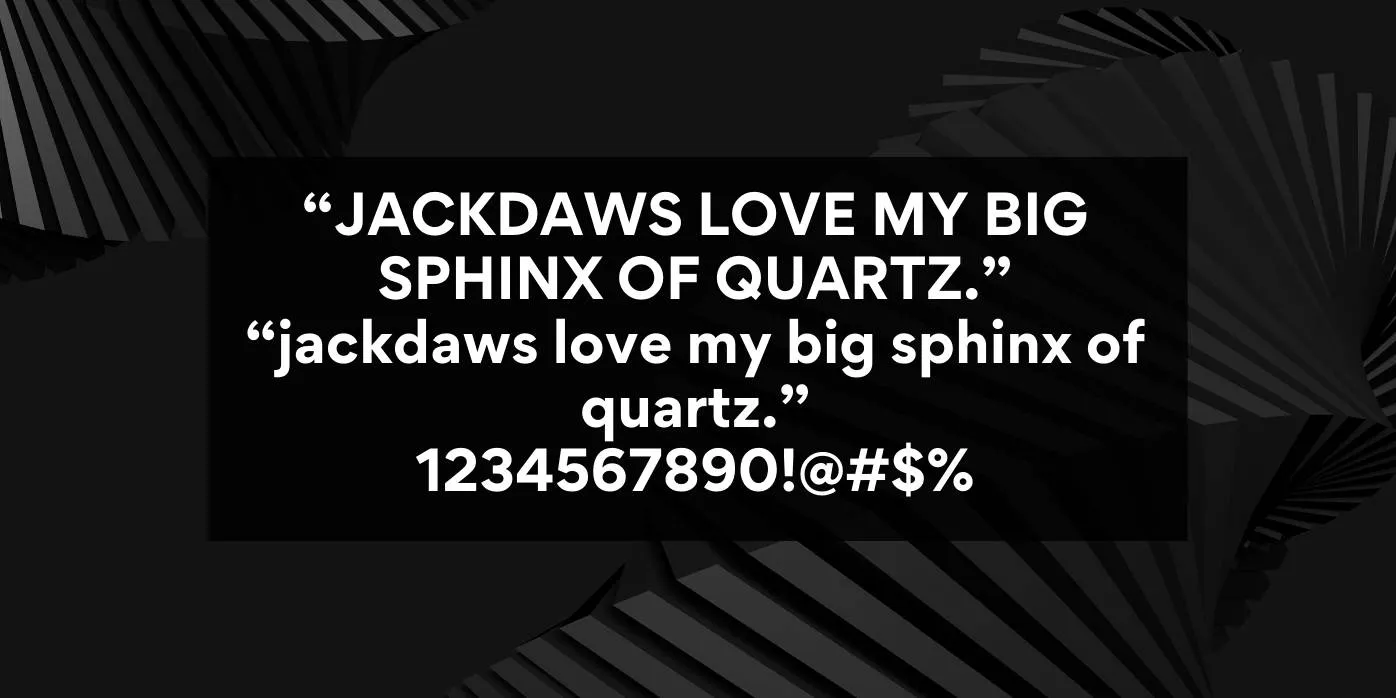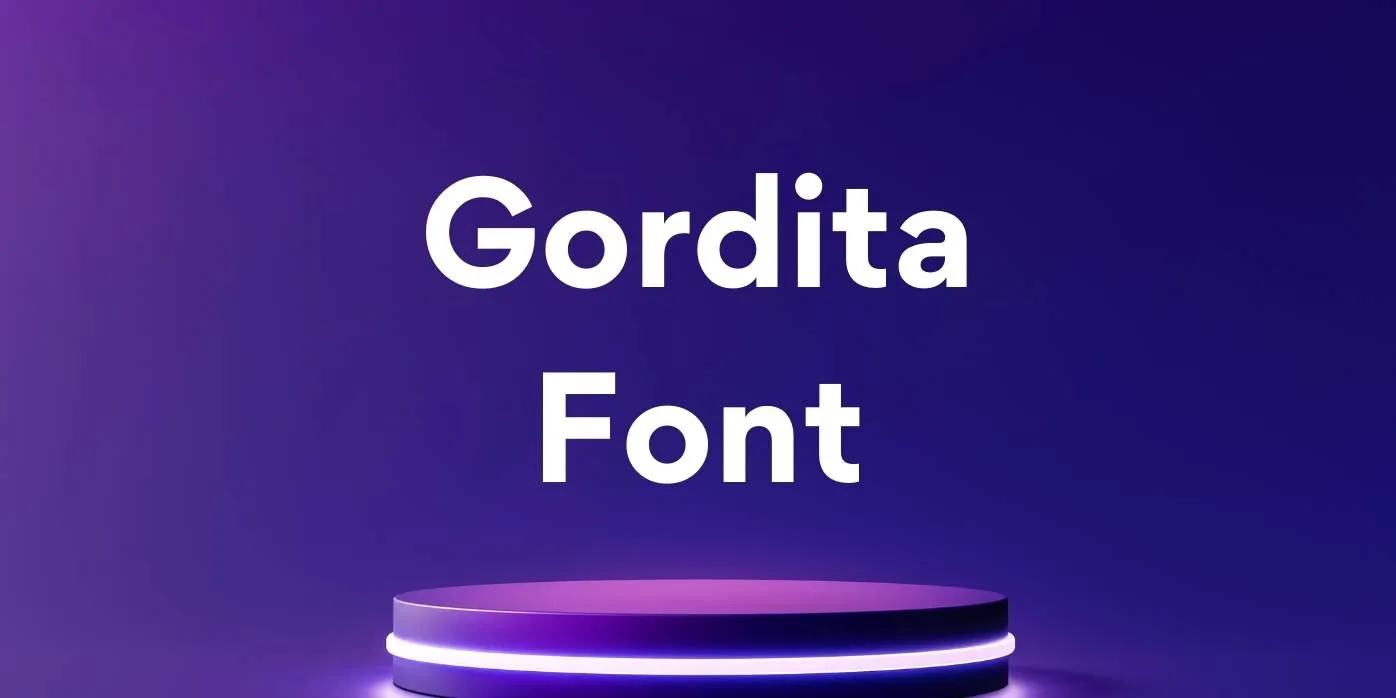
Gordita Font
Gordita Font is designed by Thomas Gillett. This family belongs to the sans serif typeface. This gorgeous font package contains five weights: Regular, Bold, Extrabold, Black, and Light. This typeface has neat and clean textures.
This tremendous font is perfect for headlines, branding, and print design. This typeface is also available in web font format. This family has a lot of unique glyphs. You can access all of the alternate characters by using OpenType features.